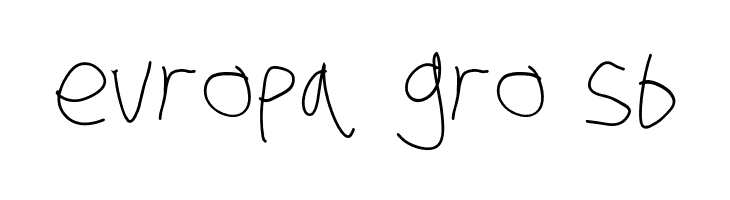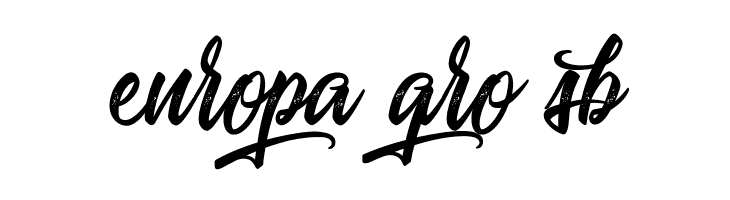
A bold, futuristic font with a dynamic, three-dimensional effect.
A bold, angular font with a dynamic, italicized style.
A futuristic, geometric font with bold, angular shapes and a digital aesthetic.
A bold, futuristic font with geometric, rounded characters.
A futuristic, geometric font with bold, angular shapes and a condensed form.
A bold, italic, futuristic font with geometric shapes and a dynamic style.
An elegant script font with flowing, cursive letterforms and intricate swashes.
An elegant script font with flowing, cursive letterforms and a sophisticated style.
A playful, bold font with rounded, bubbly characters.
A modern, rounded font with a playful and bold style.
A fluid and elegant script font with dynamic cursive letterforms.
An elegant and flowing script font with graceful curves and decorative flourishes.
A lively, handwritten font with a casual and friendly style.
An elegant, flowing script font with intricate loops and swirls.
A playful, handwritten font with fluid strokes and a modern artistic flair.
A bold, cursive font with decorative swirls and high contrast.
An elegant script font with flowing, cursive style and intricate flourishes.
An elegant, flowing script font with a handwritten aesthetic.
An elegant script font with flowing curves and decorative swirls.
A bold, handwritten font with dynamic strokes and playful contrast.
A graceful and elegant script font with flowing, interconnected letters.
A bold, modern font with geometric cuts and high contrast.
An elegant script font with flowing, intricate loops and high contrast strokes.
A whimsical, hand-drawn font with tall, narrow characters and playful details.
A bold, slanted font with a dynamic and modern style.
A bold, playful handwritten font with a dynamic and energetic feel.
A bold, 3D geometric font with shadowed outlines for a striking effect.
A graceful and elegant script font with flowing cursive letterforms.
A playful and whimsical script font with decorative loops and flourishes.
A playful, hand-drawn font with rounded, bold characters and a casual style.
A whimsical and decorative font with playful swirls and loops.
A bold, impactful font with strong, thick strokes and a modern classic appeal.
A playful, whimsical script font with smooth, flowing lines and a hand-drawn appearance.
A playful, handwritten script font with a whimsical and elegant style.